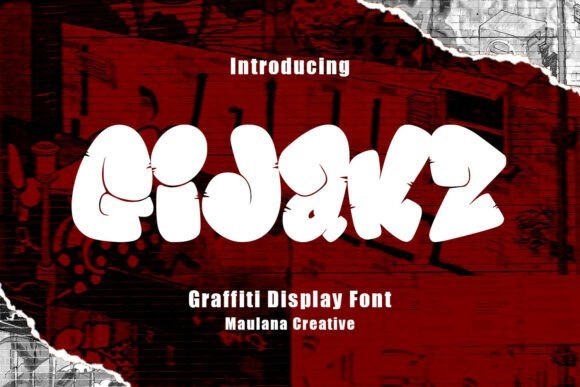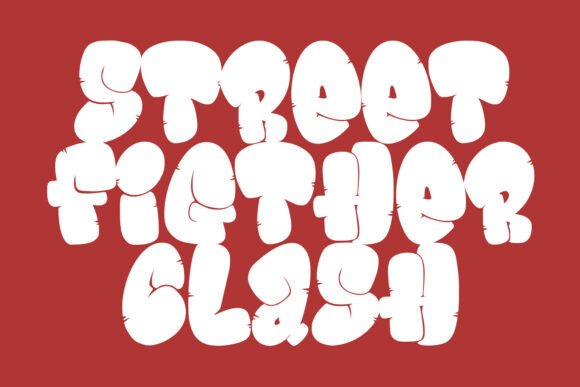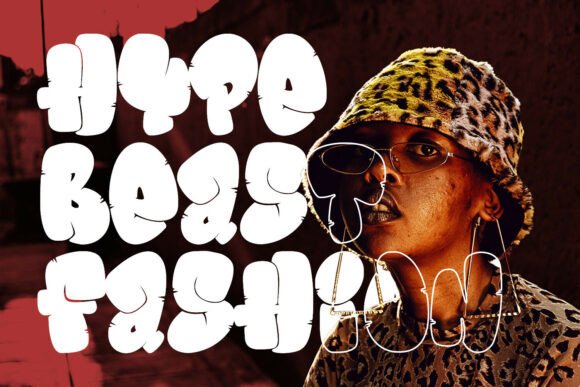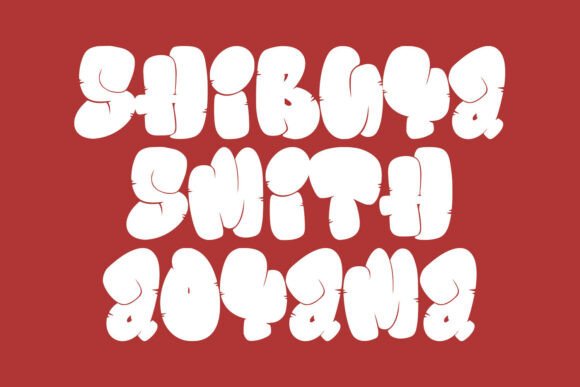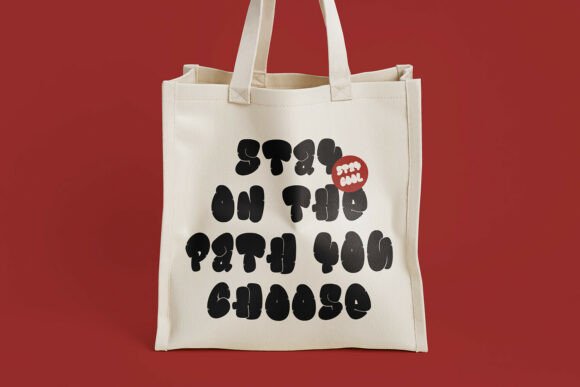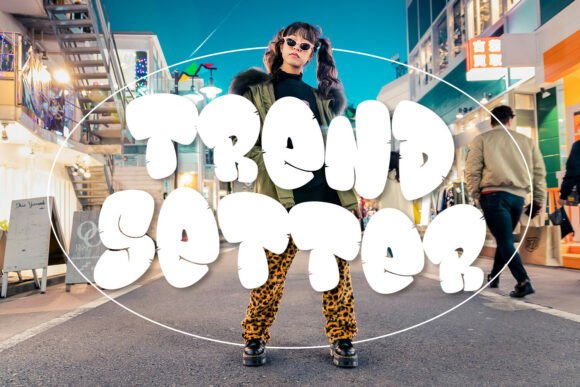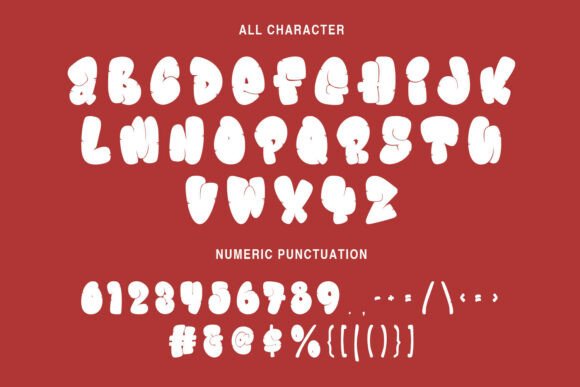
Unleash Your Creativity with the Quirky Gijaks Font
Have you ever been stuck in a creative rut, staring blankly at your screen, searching for that one spark to ignite your next big project? For many designers, this is a familiar feeling. But what if I told you that the solution lies in a font so unique, it’s almost impossible to ignore? Enter the Gijaks Font, a display font that’s equal parts quirky and captivating.
This font is more than just a pretty face – it’s a versatile tool that can elevate any design project from mundane to mesmerizing. Whether you’re creating a bold advertisement, a playful logo, or a striking social media graphic, Gijaks Font is the perfect companion to help you bring your vision to life. And with its adaptability across various contexts, you can trust that your design will stand out from the crowd.
Gijaks Font Key Features
- Font Family: Gijaks Font is a unique, hand-drawn font family designed for creative and artistic purposes.
- Unique Characteristics: Gijaks Font features a distinctive, hand-drawn style with irregular lines, unique letterforms, and subtle imperfections, adding a touch of personality to designs.
Gijaks Font Review
As a designer, I was excited to try out the Gijaks Font, and I must say it’s an interesting addition to my typography arsenal. ✨ Here are some aspects where it shines:
- Unique aesthetic: The Gijaks Font has a distinct, quirky feel that can add a touch of personality to any design project.
- Highly customizable: The font includes a range of OpenType features and ligatures, making it easy to tailor the look to your specific needs.
- Good for display use: The Gijaks Font is particularly well-suited for headings, titles, and other display typography, where its bold, expressive strokes can really shine.
- Not ideal for body text: While the Gijaks Font is great for headings, it can be a bit too ornate and overwhelming for large blocks of body text.
- Lack of cohesion in some weights: Some of the font weights feel a bit disconnected from one another, which can make it harder to use consistently throughout a design.
- Not as versatile as some other fonts: The Gijaks Font is best suited for projects with a bold, expressive aesthetic – it may not be the best choice for more minimalist or elegant designs.
Overall, I think the Gijaks Font is a solid choice for designers who want to add a bit of personality and whimsy to their work. While it has some limitations, its unique aesthetic and high level of customization make it a great option for projects that require a bold, eye-catching look.